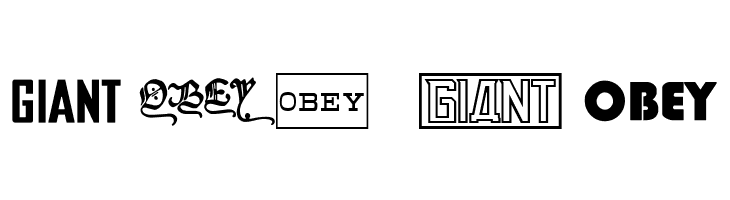
A bold, geometric font with a strong, authoritative presence.
A bold, condensed display font with a dynamic urban style.
A bold, condensed font with a modern, assertive style, perfect for impactful designs.
Ornamental font made of complex, patterned glyphs.
Ornate, pattern-filled decorative font with bold contrast.
Decorative, graphic, and illustrative font with street art influences.
Graphic, illustrative font with each character as a distinct artwork.
A graphic, street-art-inspired decorative display set of illustrated icons.
A bold, condensed display font with a geometric, street-art aesthetic.